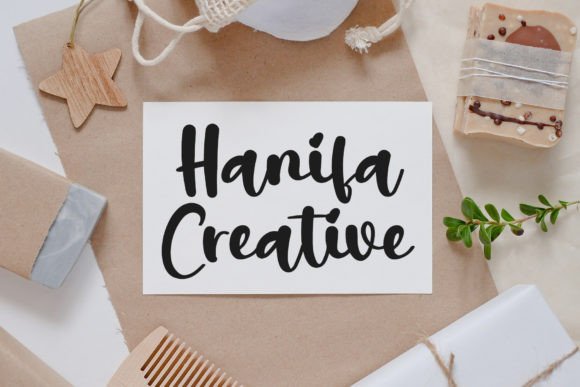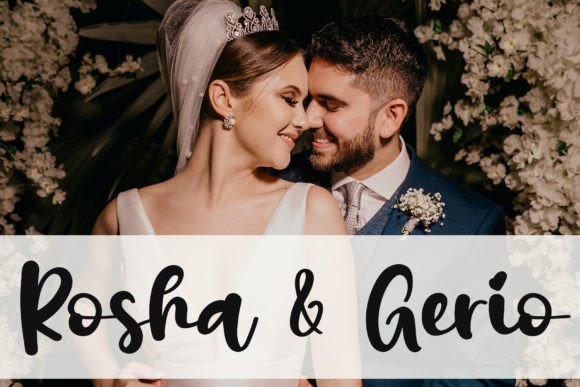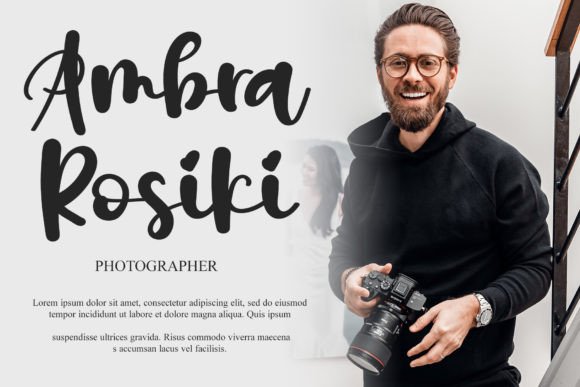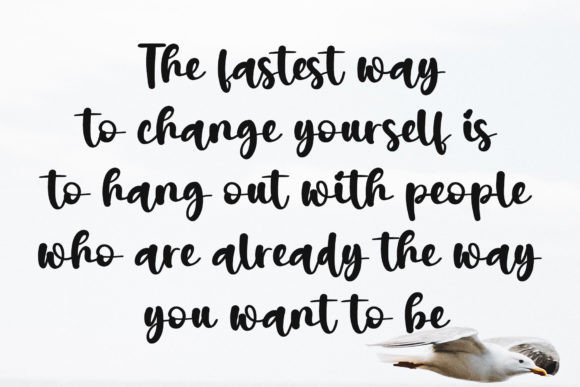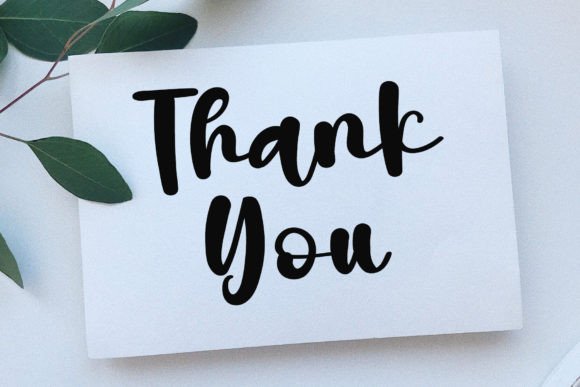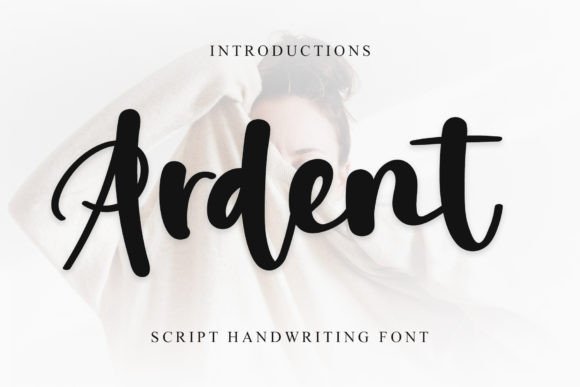
Introducing Ardent Font: Elevate Your Designs with a Stylish and Modern Handwritten Touch
In the world of design, fonts play a crucial role in conveying the tone and personality of a project. Whether you’re working on a greeting card, headline, branding, or packaging, the right font can make all the difference. If you’re looking for a stylish and modern handwritten font that can add a touch of happiness to your creations, look no further than Ardent Font.
What is Ardent Font?
Ardent Font is a beautiful, modern handwritten font that is suitable for a wide spectrum of applications. Its stylish and elegant design makes it perfect for designers and crafters who want to add a personal touch to their projects. From casual and playful to sophisticated and elegant, Ardent Font can help you achieve the desired look and feel.
Key Features of Ardent Font
- PUA Encoded: Ardent Font is PUA (Private Use Area) encoded, which means you can access all of the amazing glyphs and ligatures with ease. This feature makes it easy to use and customize the font to suit your needs.
- Handwritten Style: Ardent Font has a beautiful handwritten style that is both stylish and modern. Its elegant design makes it perfect for a wide range of projects, from greeting cards to headlines and branding.
- Wide Range of Applications: Ardent Font is versatile and can be used for a variety of projects, including greeting cards, headlines, branding, packaging, and more.
Benefits of Using Ardent Font
Using Ardent Font can bring numerous benefits to your designs. Here are a few:
- Adds a Personal Touch: Ardent Font’s handwritten style adds a personal touch to your designs, making them more relatable and engaging.
- Enhances Creativity: With Ardent Font, you can experiment with different styles and designs, enhancing your creativity and productivity.
- Versatile: Ardent Font is versatile and can be used for a wide range of projects, making it a great addition to your font library.
- Time-Saving: Ardent Font’s PUA encoding and ease of use make it a time-saving solution for designers and crafters.
Who Can Benefit from Ardent Font?
Ardent Font is perfect for:
- Graphic Designers: Graphic designers can use Ardent Font to add a personal touch to their designs, making them more engaging and effective.
- Crafters: Crafters can use Ardent Font to create beautiful and unique projects, such as greeting cards, scrapbook pages, and more.
- Small Business Owners: Small business owners can use Ardent Font to create professional-looking branding and marketing materials.
- DIY Enthusiasts: DIY enthusiasts can use Ardent Font to add a personal touch to their DIY projects, such as signs, posters, and more.
In conclusion, Ardent Font is a stylish and modern handwritten font that can elevate your designs and add a touch of happiness to your creations. Its PUA encoding, ease of use, and versatility make it a great addition to your font library. Whether you’re a graphic designer, crafter, small business owner, or DIY enthusiast, Ardent Font is perfect for anyone looking to add a personal touch to their projects.